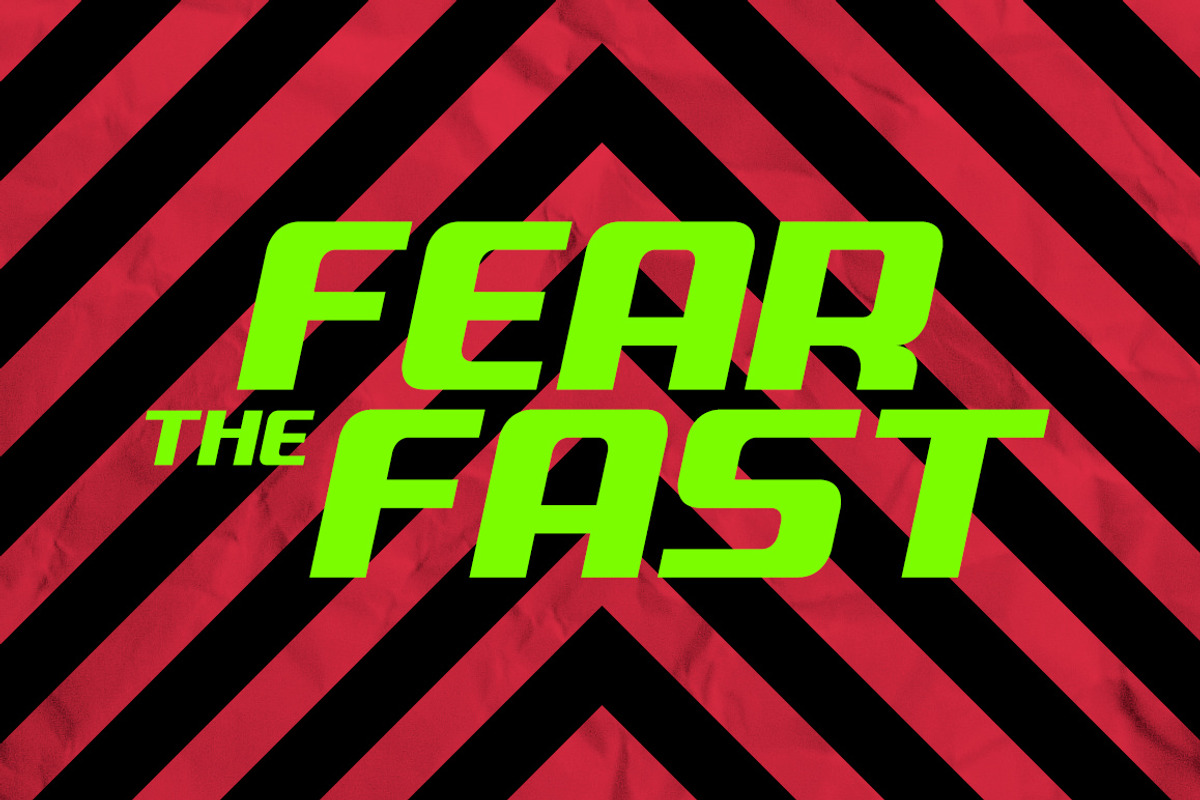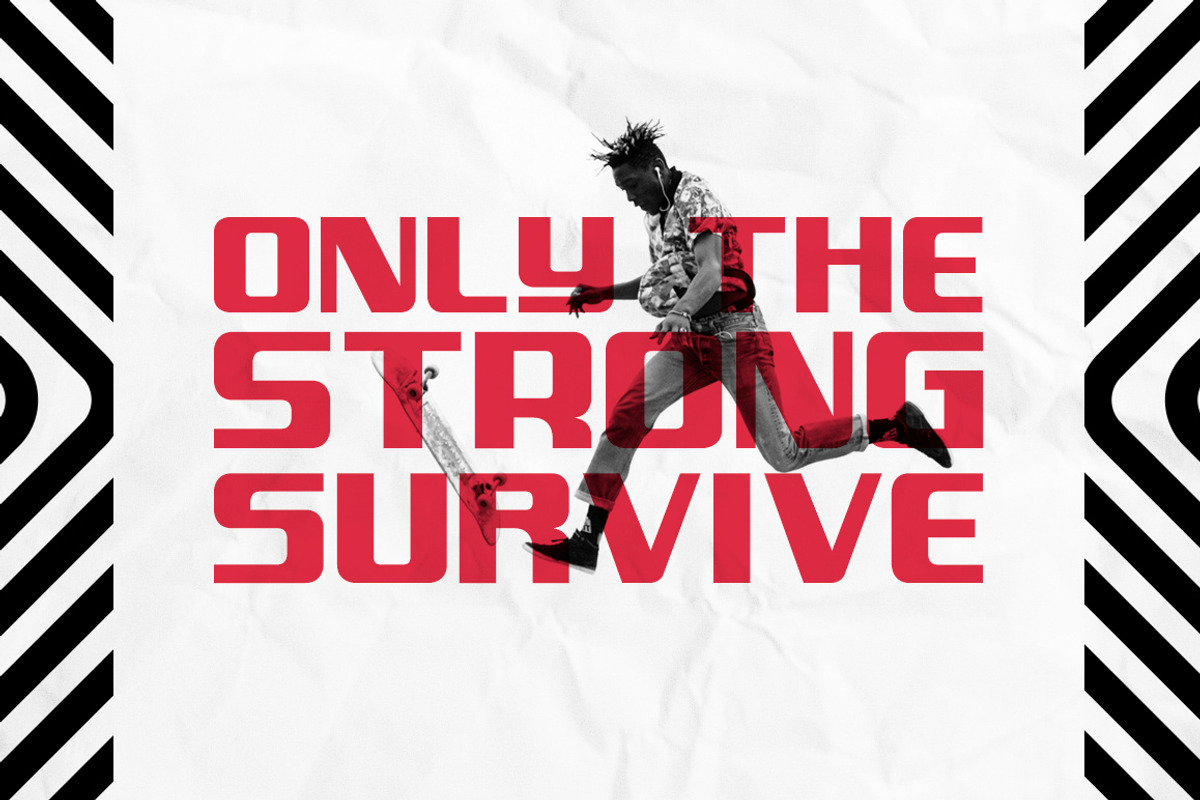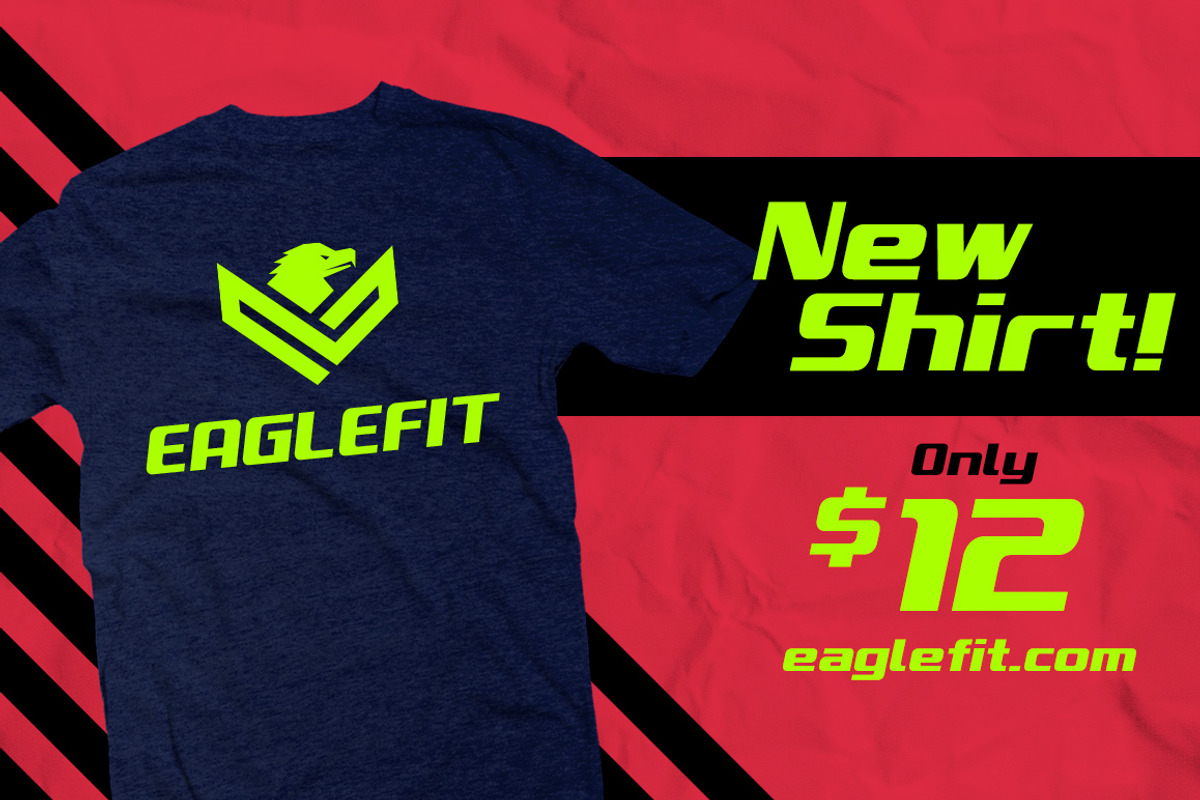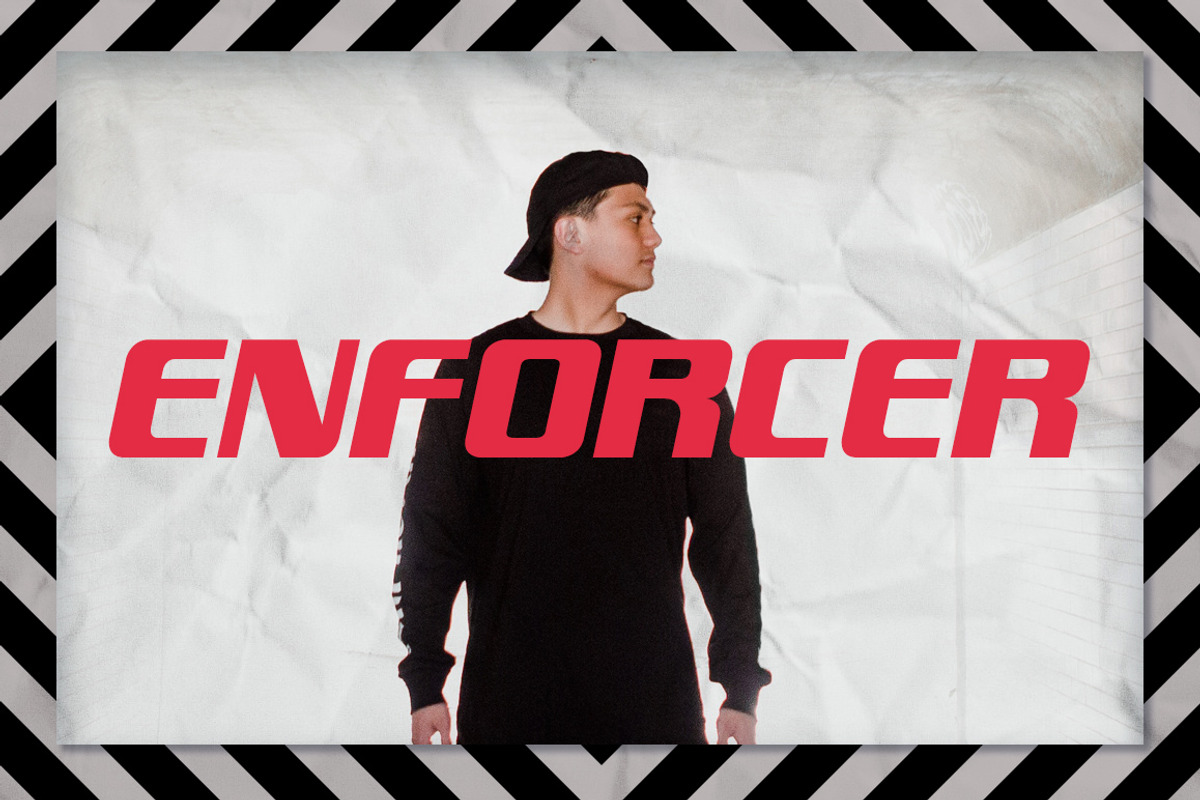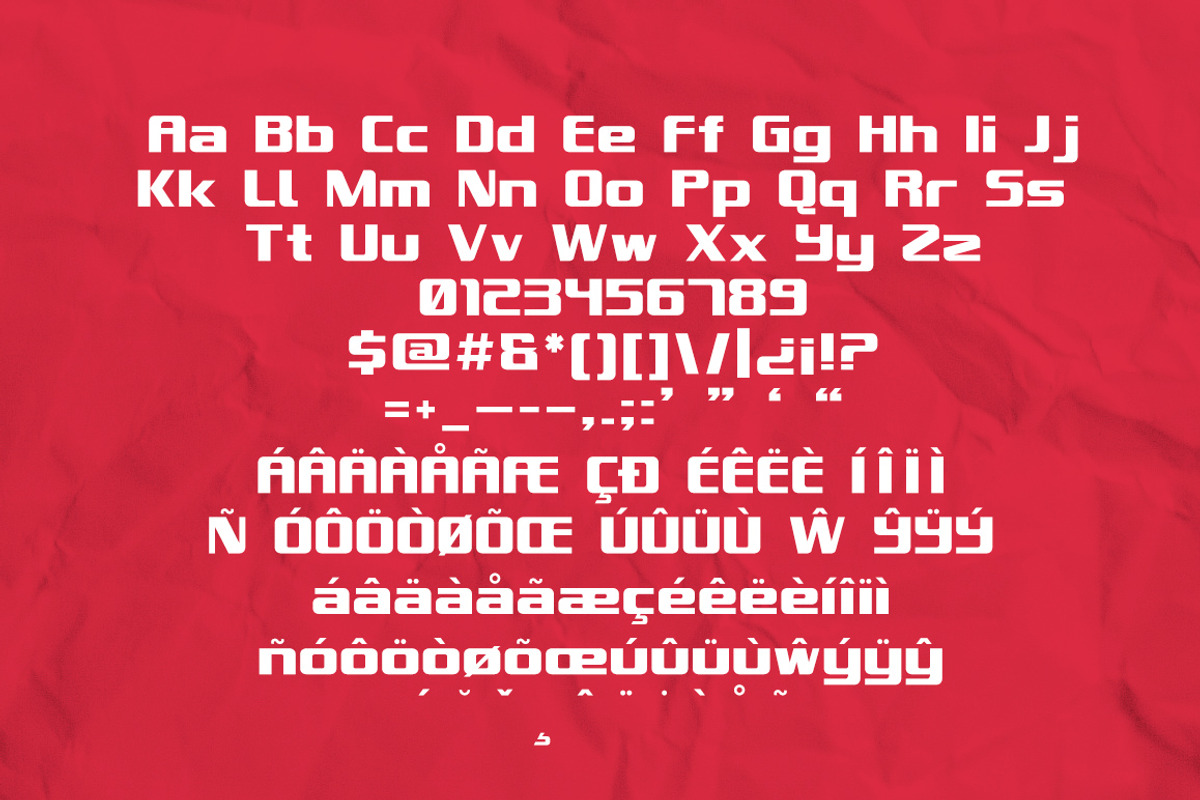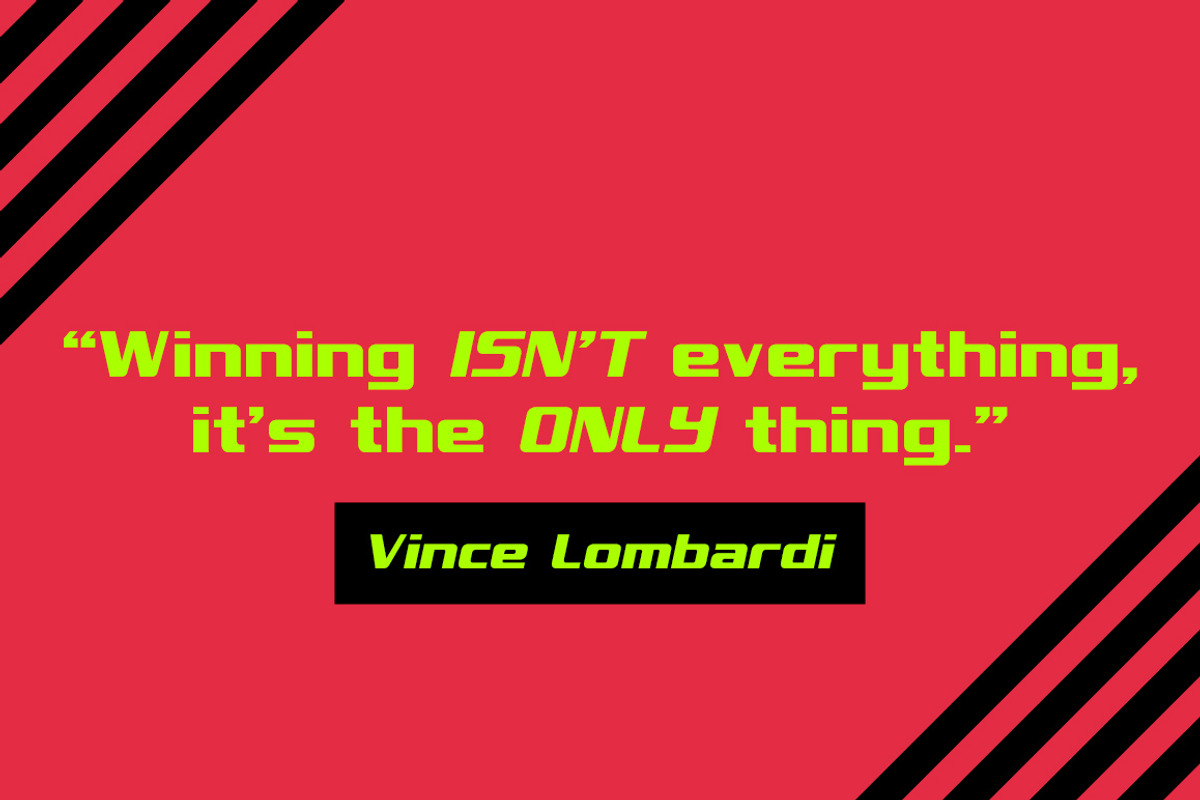
Enforcer Typeface
ENFORCER is a semi-rounded, bold sans serif that was developed for signage and the sports-minded designer. Inspiration comes from college sports team branding and my sign industry experience.
It has just been updated and refreshed (July 2018) to feature:
- lowercase letters
- alternate glyphs
- basic accents
- italic
Think power and "top of the table" position when using this font. ENFORCER will work great for sports apparel, jerseys, and even branding, when you want a slant on Serpentine or some other overused signage typeface. Use the alternate glyphs to create different combos and set different moods whether in a retail space or promoting your sports team.